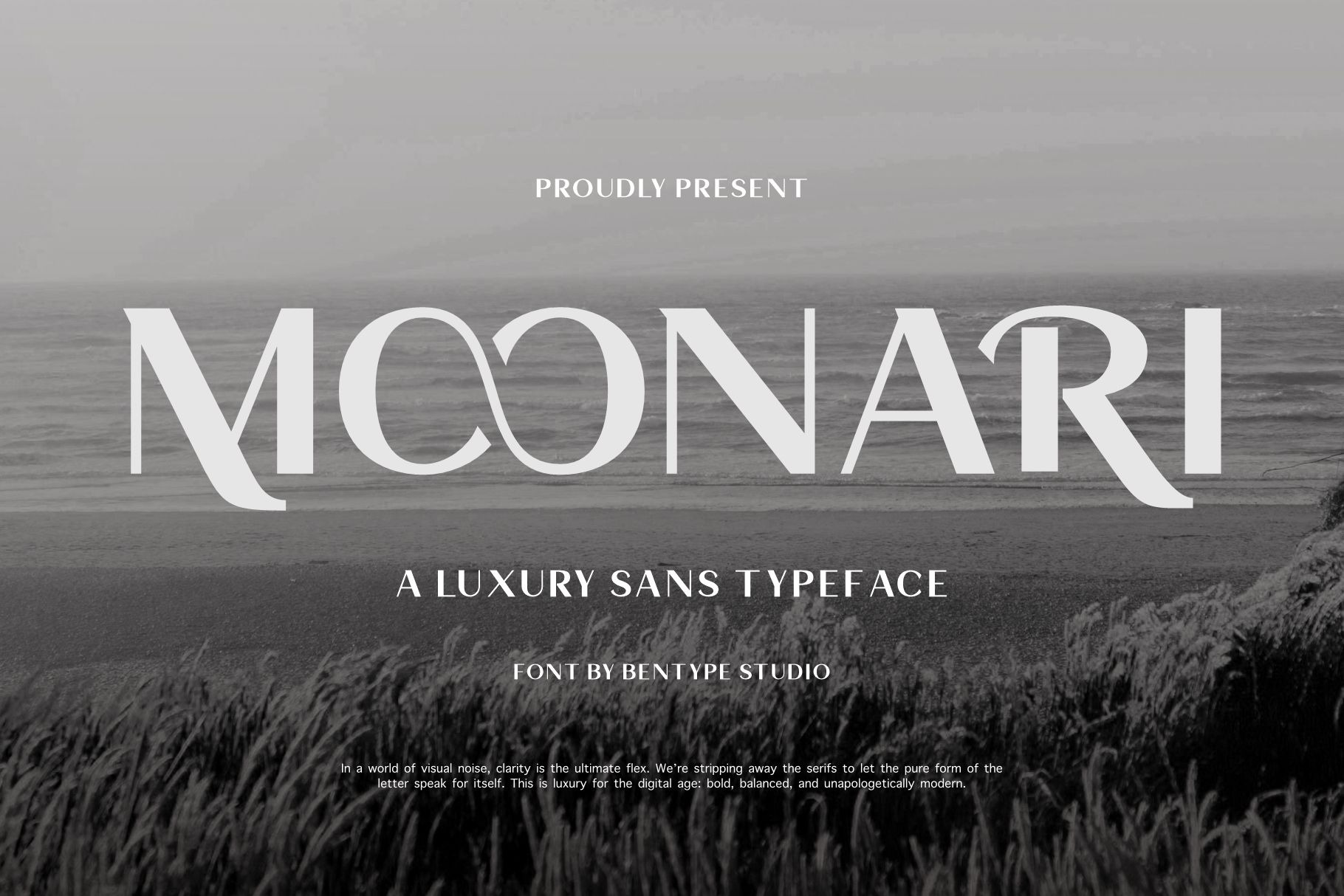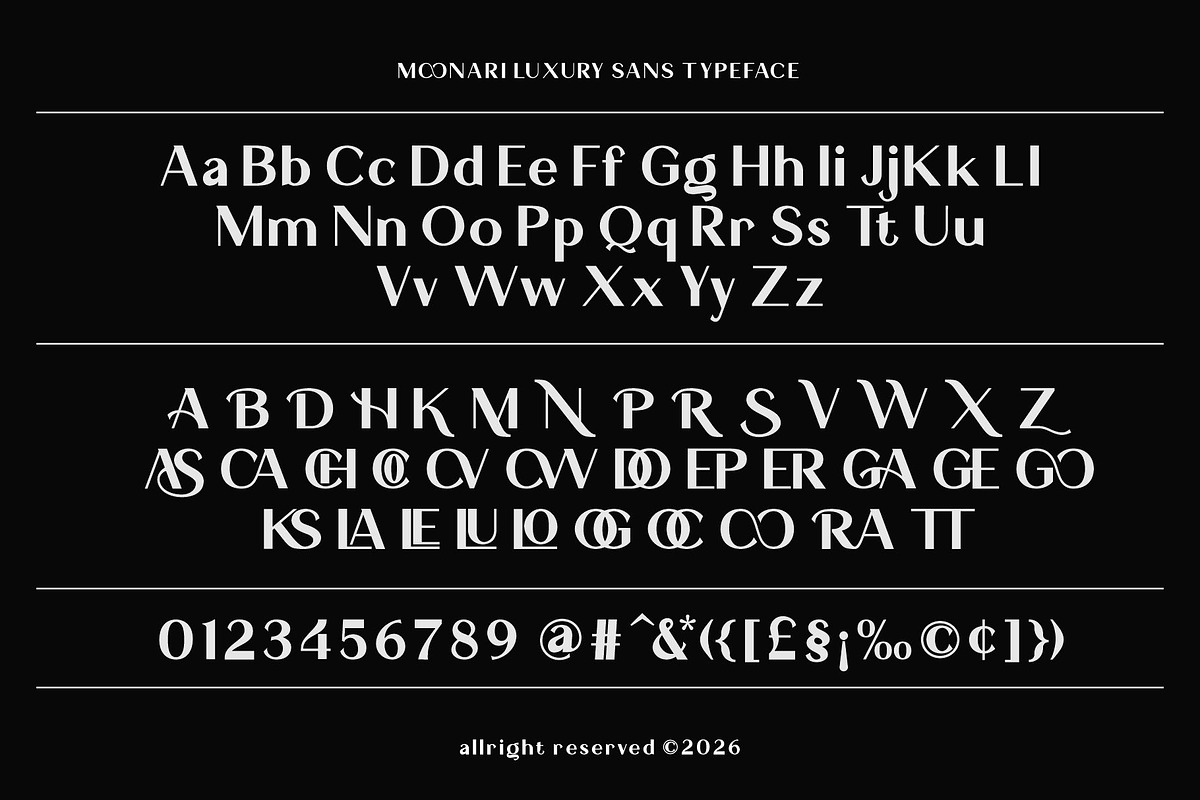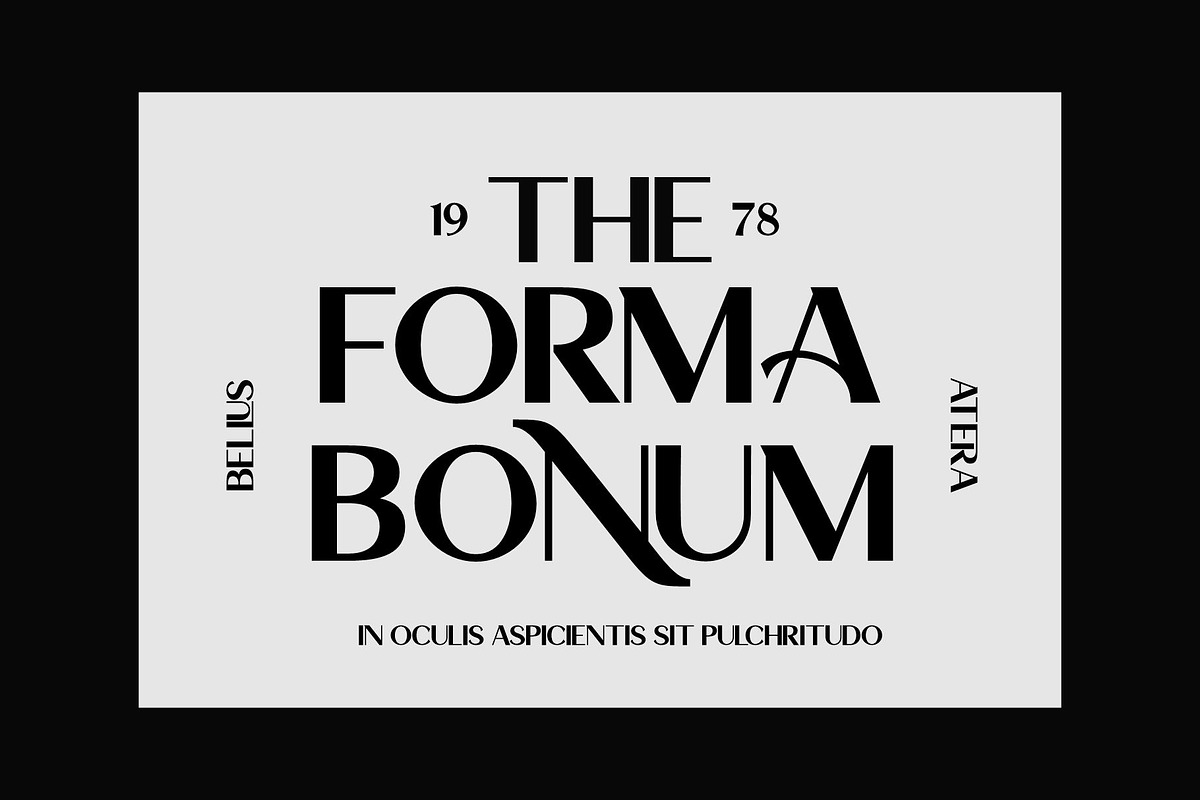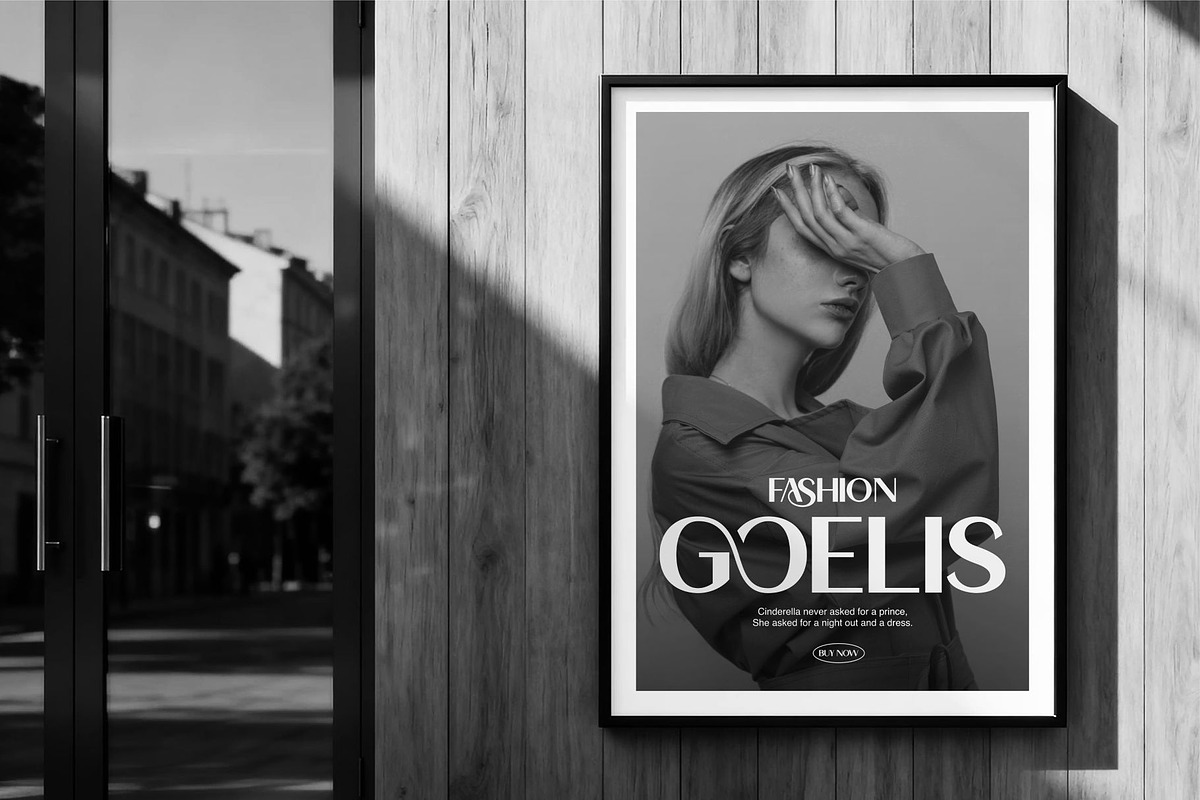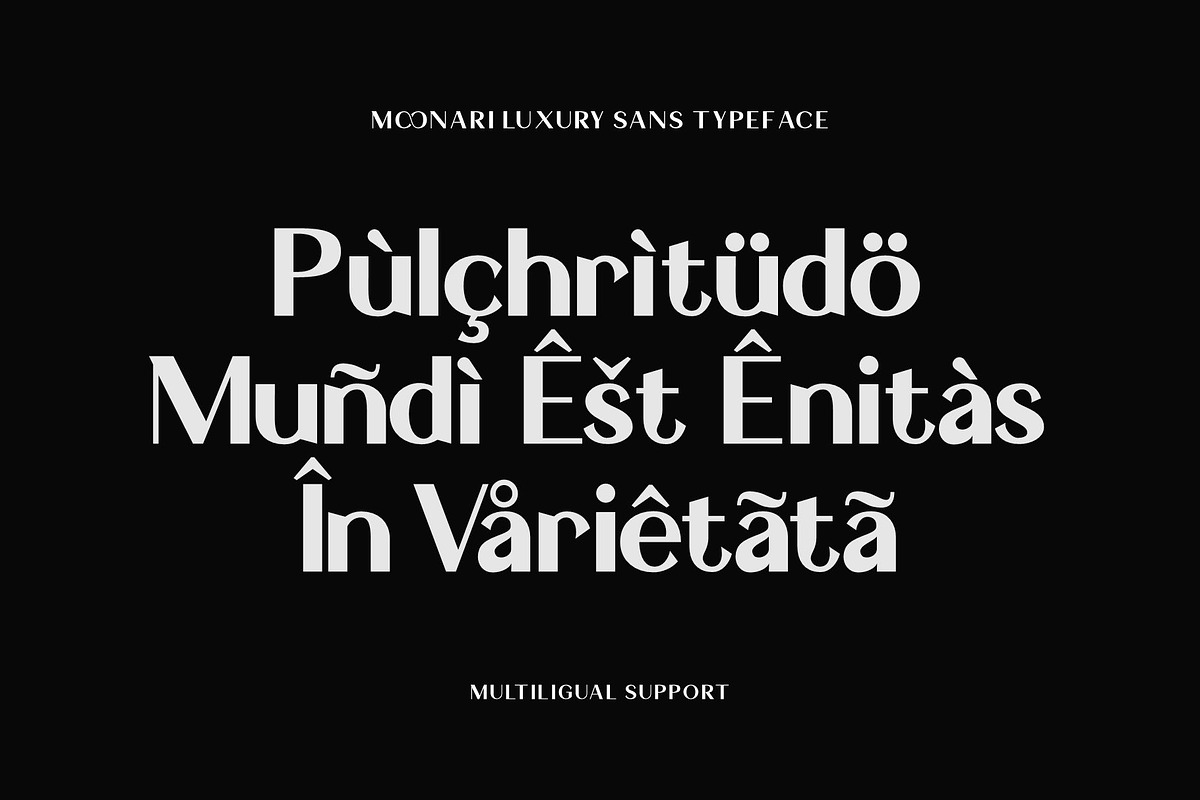
Moonari - Luxury Sans Typeface
Moonari - Luxury Sans Typeface doesn’t always need flourishes; sometimes, it’s found in the perfect balance of a curve and a straight line. This luxury sans serif embodies modern elegance through intentional spacing and refined proportions. It’s quiet confidence in digital form.
Moonari can be used for a variety of projects such as branding, photography, invitations, wedding designs, product design and other romantic projects.